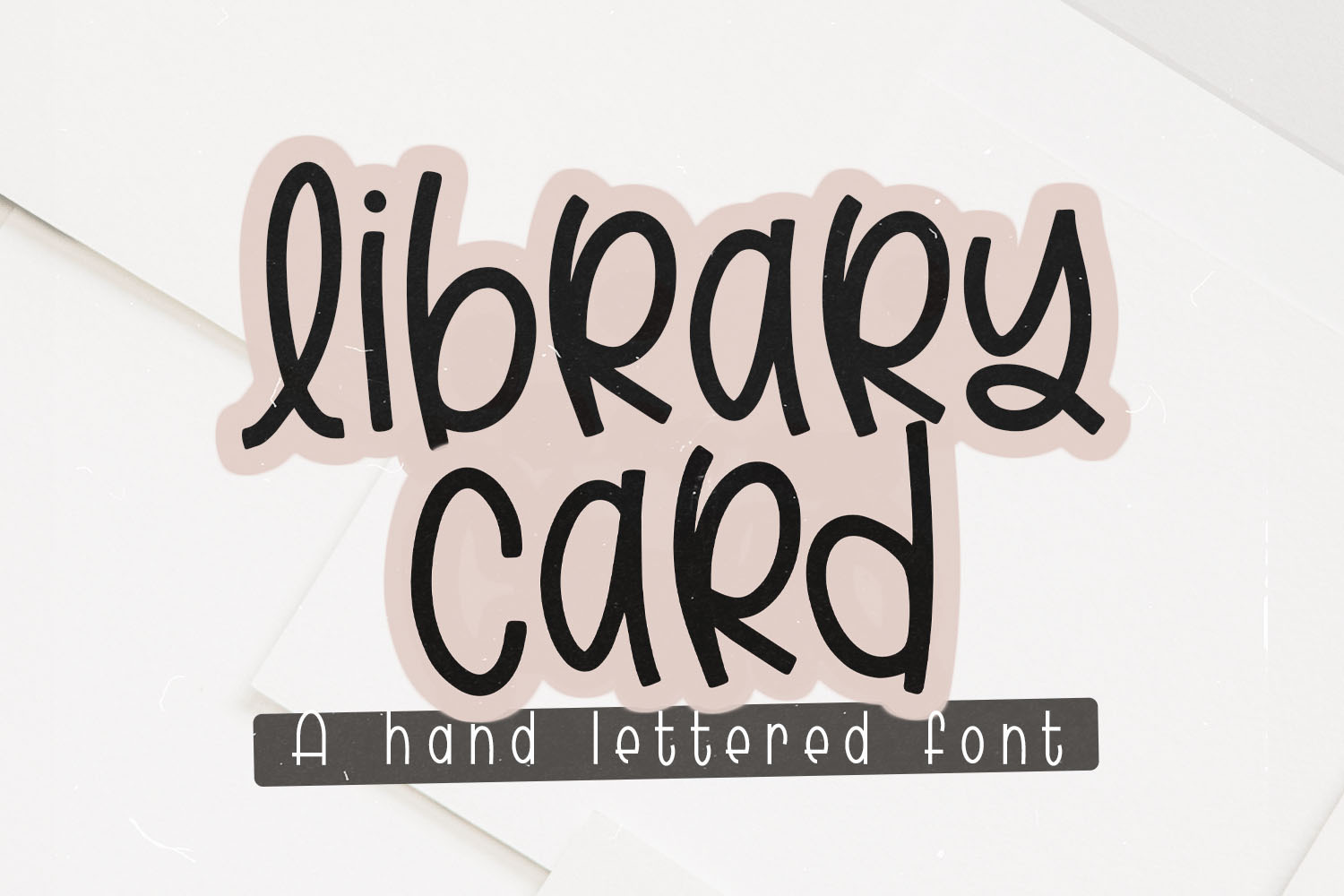
Library Card Hand Lettered Font
This font is hand lettered! Use this fun & cute font for all of your creative needs! Making SVGs, graphic design projects, shirts, wood signs, cards, social media, stickers, blog posts, classroom designs, and much more! This is a smooth font - perfect for cut machines like Cricut and Silhouette!